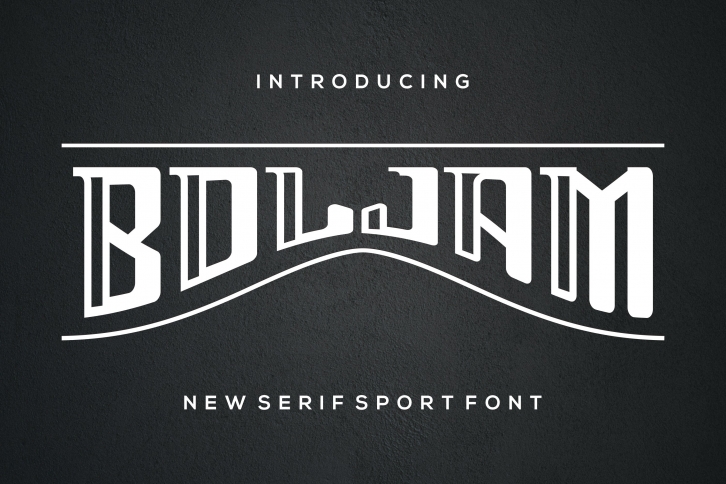
Boljam is a gorgeous font that was realeased on September 8, 2022. The font can be used in many style contexts and design environments. Perfect for invitations, magazines, websites, logos, and more! It was designed by logologo and the file size is 19.12 MB. Thanks for checking out this font!